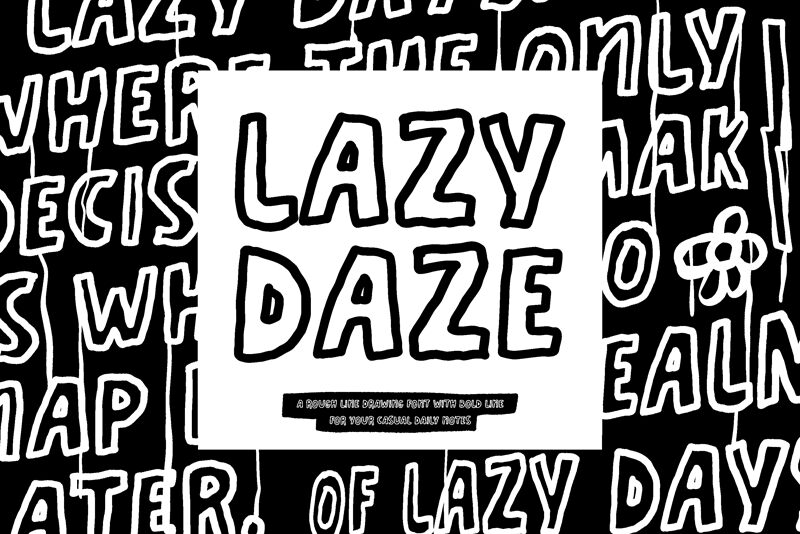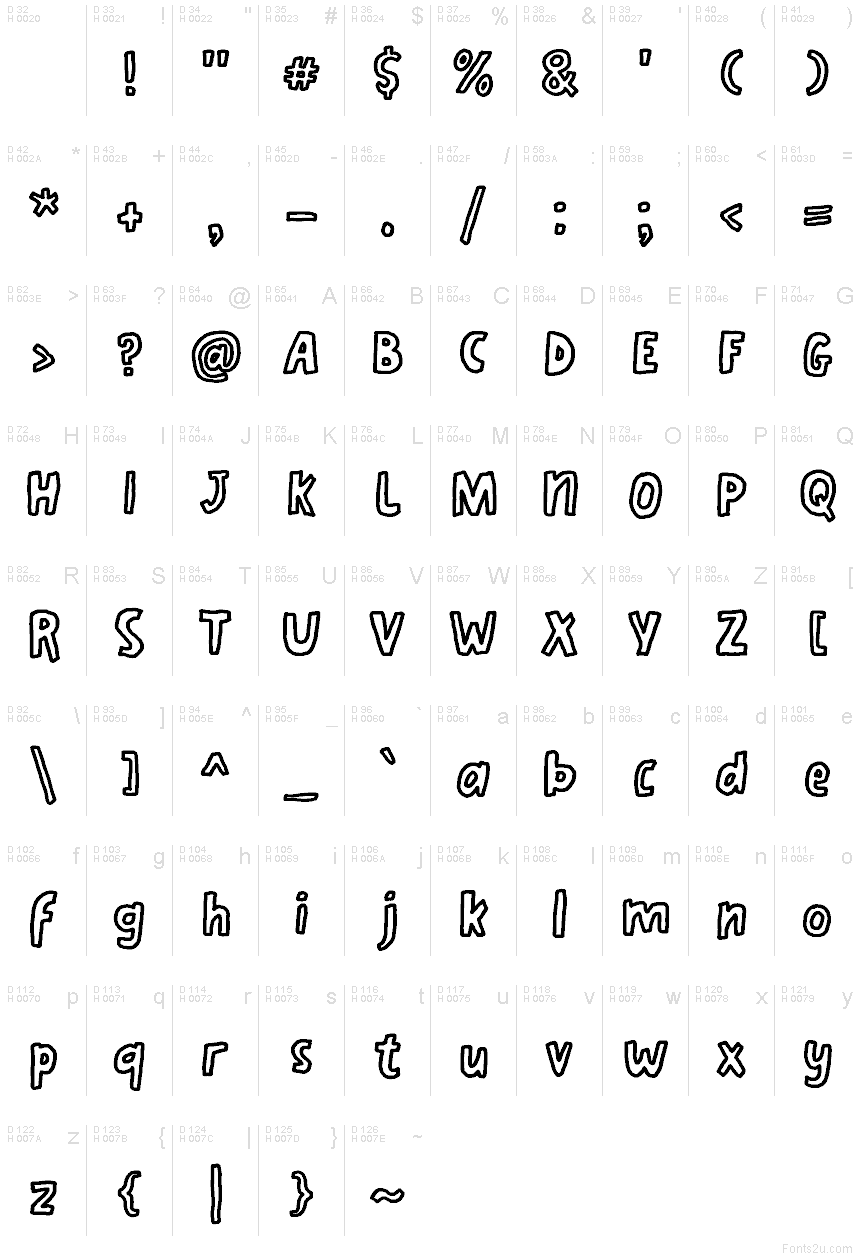
ATP-Lazy Daze
ATP-Lazy Daze font by Thufail Al Ghifary is a free outlined handwritten display font. Built like chunky marker lettering with a bold, inky border and airy interiors, it has a bouncy rhythm that feels friendly and unforced. The squishy curves and uneven strokes give headlines a sticker-like pop, begging to be colored, layered, or animated.
Using ATP-Lazy Daze, big type lands with charm without shouting. It shines on kids’ posters, birthday invites, classroom printables, comic headers, YouTube thumbnails, stickers, and playful packaging. The generous outlines hold up at large sizes and still read at medium scales. Pair this free font with a clean, light-weight sans to keep the message bright and legible.
Hand-drawn line fonts are typefaces that mimic the appearance of hand-drawn or hand-written text using lines. These fonts often simulate the irregularity, imperfection, and organic flow of human-made lines. Here are some characteristics: